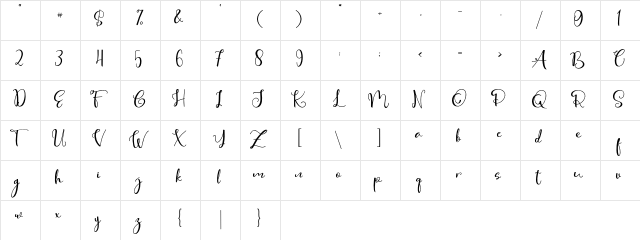
Cute Thing Script (Demo) Regular
Design Context for Cute Thing Script (Demo) Typeface
Cute Thing Script (Demo) brings a calligraphic fluidity to the page — its connecting strokes and expressive curves give it an unmistakably human quality. Its slender proportions lend an understated elegance to any composition.
Font Pairing: Combine Cute Thing Script (Demo) with a simple geometric sans for maximum contrast — the tension between flowing curves and clean structure is a classic typographic pairing.
Pro Tip: Use Cute Thing Script (Demo) for short runs of text — names, titles, or taglines. Extended body copy in script faces tires the eye quickly.